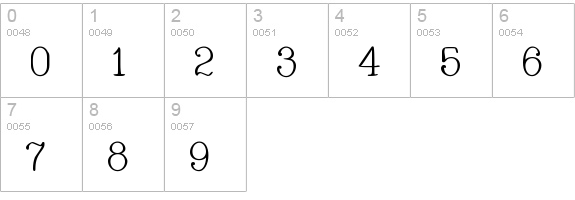
Whackadoo Font Details
Introducing Whackadoo font, a delightful and whimsical typeface that is sure to add a touch of playfulness to any design project. With its quirky and eccentric letterforms, Whackadoo font is perfect for capturing attention and creating a unique visual experience. What sets Whackadoo font apart is not only its distinctive style, but also the fact that it is available for free. Yes, you read that right! Whackadoo font can be freely downloaded at FontsMarket.com, making it accessible to designers, creatives, and enthusiasts alike. Whether you're designing a children's book, a logo for a playful brand, or simply want to inject some fun into your personal projects, Whackadoo font is the perfect choice. Its lively and animated appearance will bring a sense of joy and excitement to any design. The characters of Whackadoo font are carefully crafted with attention to detail, ensuring legibility without sacrificing the fun and quirkiness that defines this typeface. Each letter, number, and symbol is like a little work of art, ready to bring life and personality to your designs. Pair Whackadoo font with vibrant colors and bold graphics for a truly eye-catching composition. Its versatile nature allows it to adapt effortlessly to various design styles, from modern and minimalist to retro and vintage. Stand out from the crowd and let your creativity run wild with Whackadoo font. Download it for free at FontsMarket.com and unleash the playful spirit within your designs. Whether you're a professional designer or a hobbyist, Whackadoo font is here to add a touch of whimsy to your creative projects.